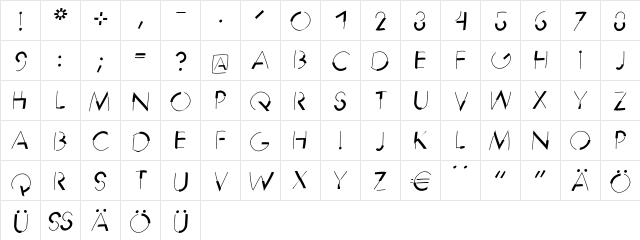
Reduce2Max Medium Italic
Design Context for Reduce2Max Typeface
Reduce2Max offers clean, dependable letterforms without strong stylistic allegiance, making it a practical choice for designers who need flexibility. Its italic angle brings a sense of urgency and motion to the letterforms.